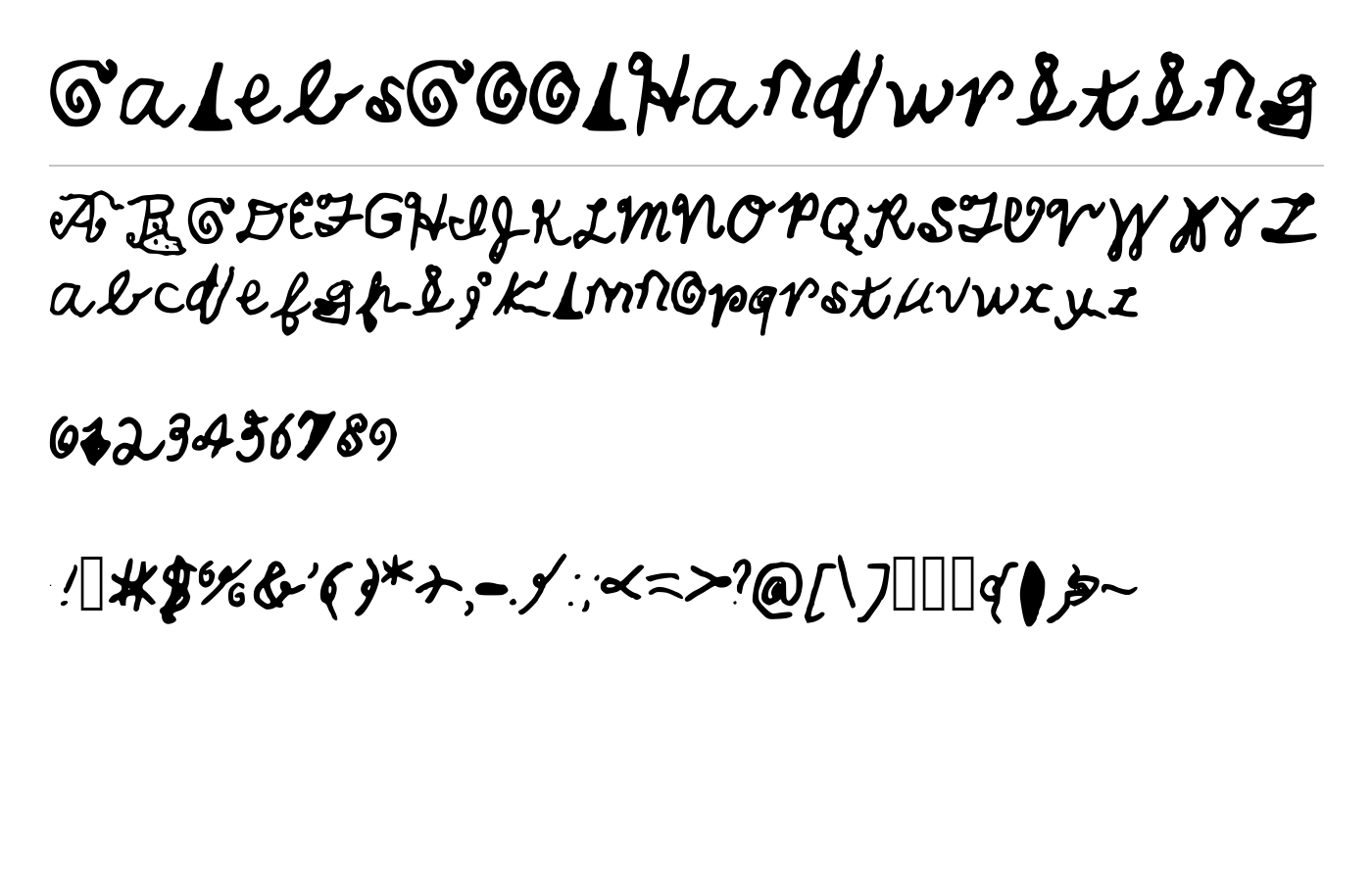
CalebsCoolHandwriting is a playful, decorative handwritten font with an irregular and quirky style that features swirling and uneven strokes, giving it a lively and informal personality. Its bold weight and unique letterforms make it ideal for creative projects, children's materials, or casual branding where a fun and whimsical tone is desired. This font works best in display use such as logos, posters, or invitations where its distinctive character can shine without sacrificing readability.
CalebsCoolHandwriting Font
About CalebsCoolHandwriting Font